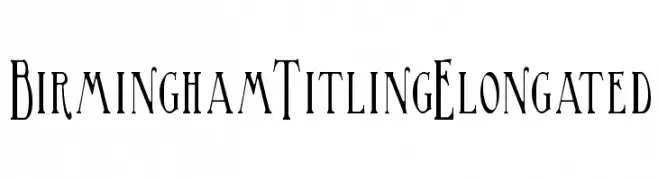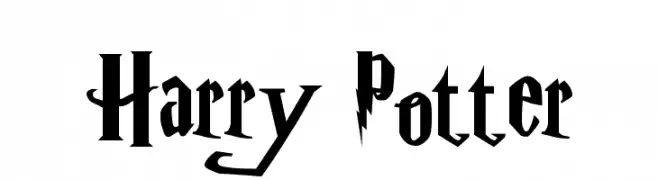
( Fonts by Paul Lloyd )
An elongated, elegant font with decorative elements and refined letterforms.
( Fonts by Dieter Schumacher )
A bold, geometric font with a futuristic and tech-inspired design.
( Fonts by www.fontalicious.com )
A futuristic, geometric font with consistent stroke widths and unique character shapes.
( Fonts by ARRF Designs )
A bold, high-contrast font with sharp angles and a gothic flair.